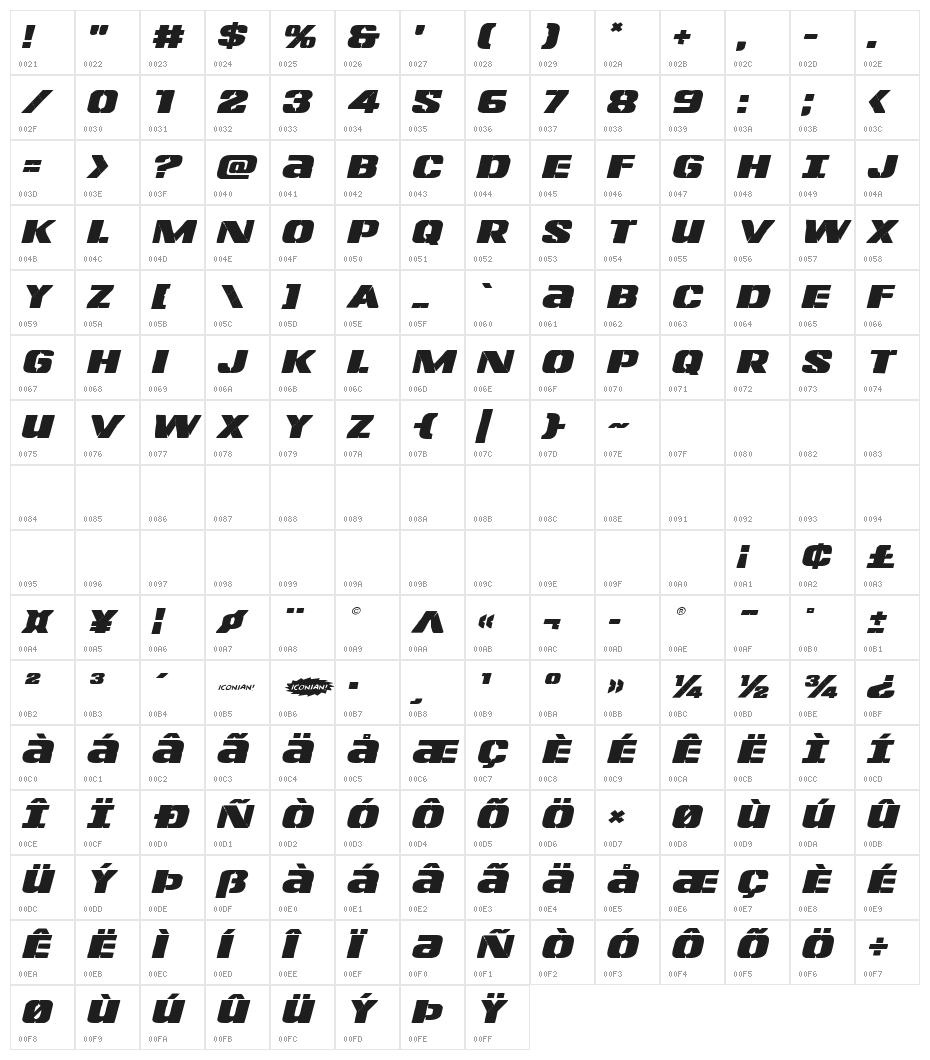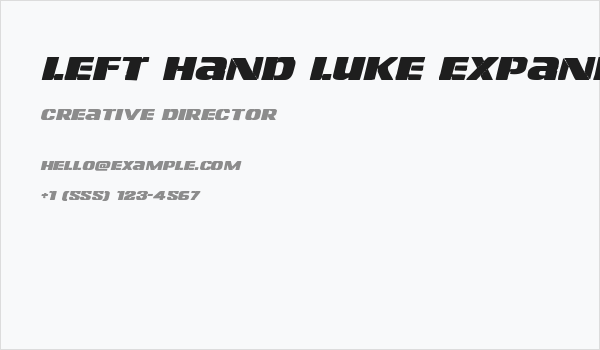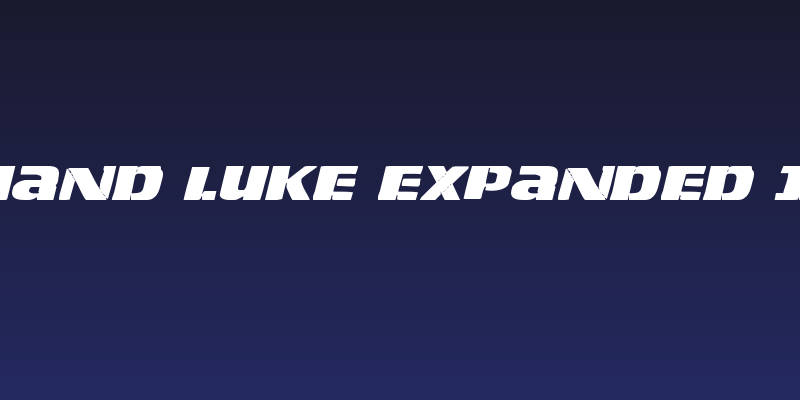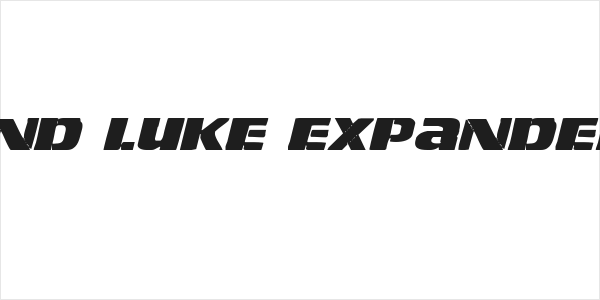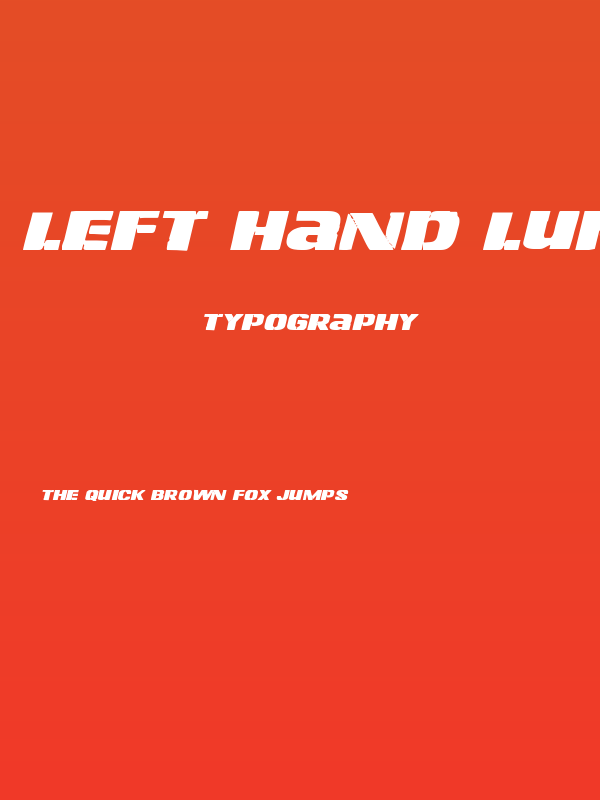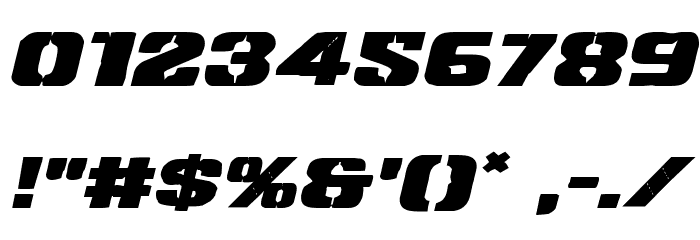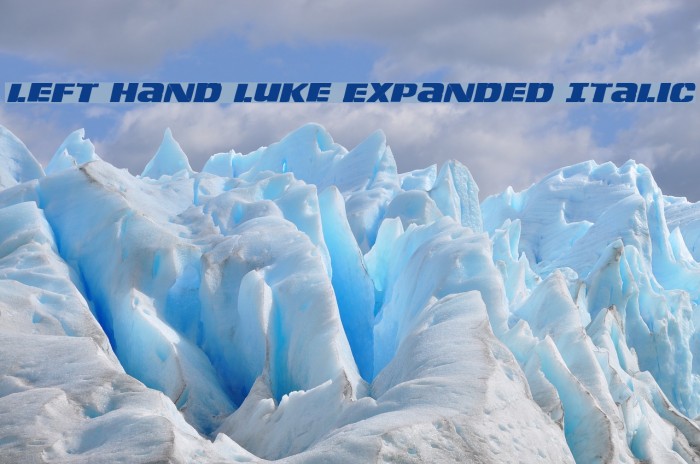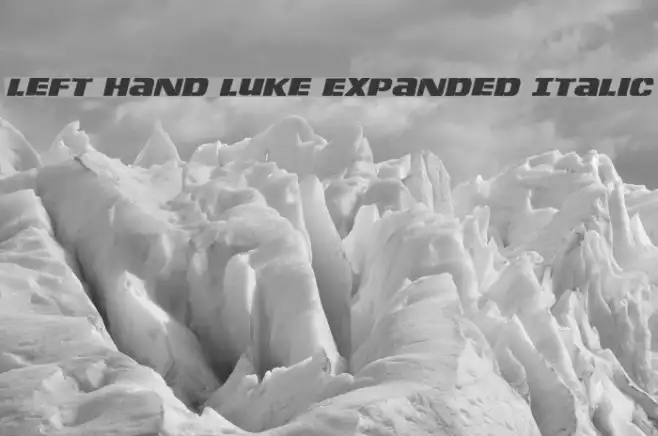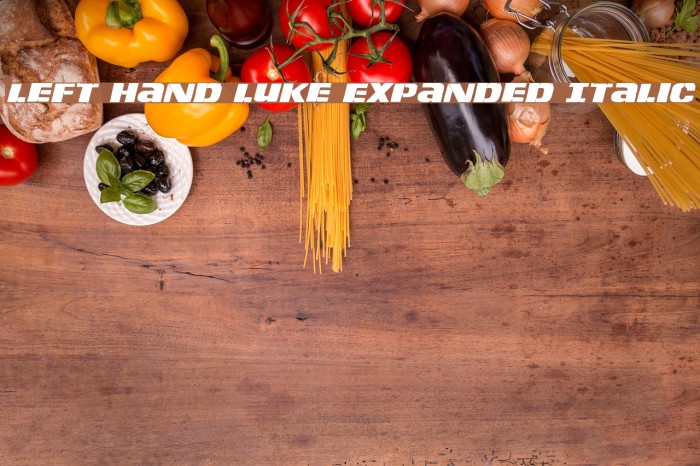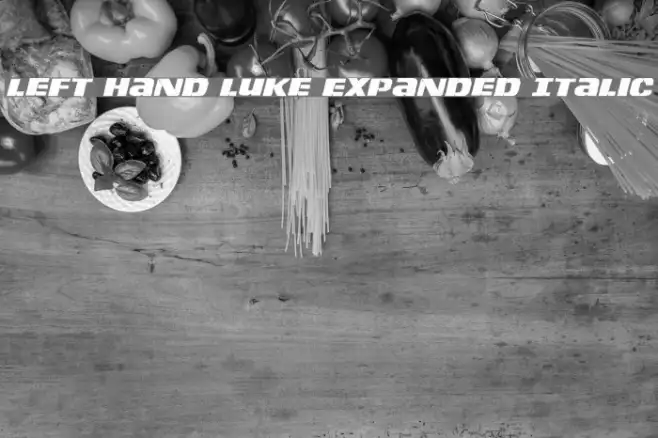
Left Hand Luke Expanded Italic Font
Left Hand Luke Expanded Italic Description
This font features a bold and dynamic style with an expanded width and italic slant, giving it a strong and assertive presence. The characters are designed with a modern flair, incorporating sharp edges and a slightly distressed texture that adds a unique, rugged charm. The uppercase and lowercase letters maintain a consistent weight, ensuring readability while still offering a distinctive look. The numerals and special characters follow the same stylistic cues, making them cohesive with the overall design. This font's expanded width allows for a more commanding visual impact, making it suitable for attention-grabbing applications.
| Proposed Projects | Ideal for use in posters, headlines, branding, and any project requiring a bold, impactful typeface. |